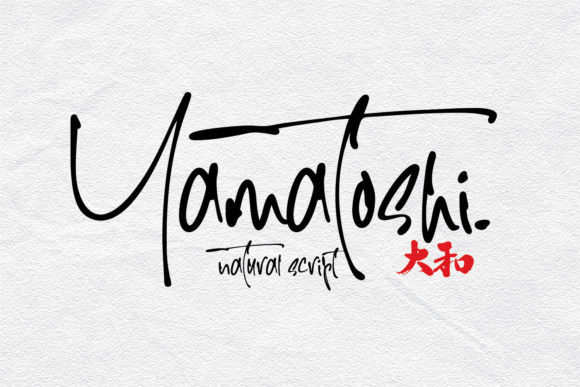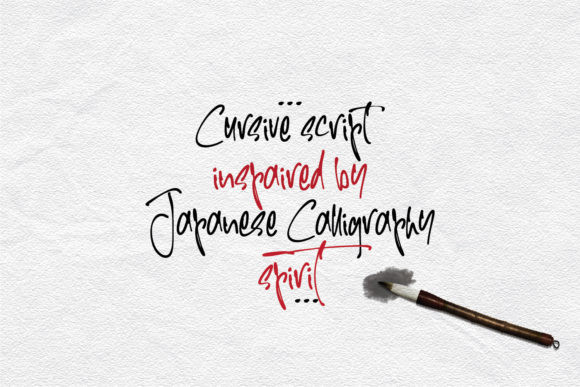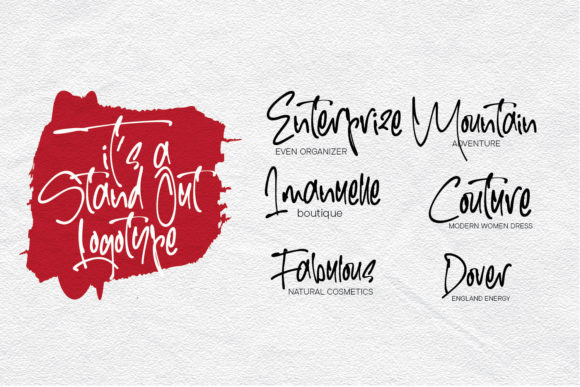
Yamatoshi Font
Yamatoshi is a handwritten script font inspired by Japanese calligraphy culture. Suitable to energize your design with free spirit vibe, Yamatoshi stands out for its natural charm.